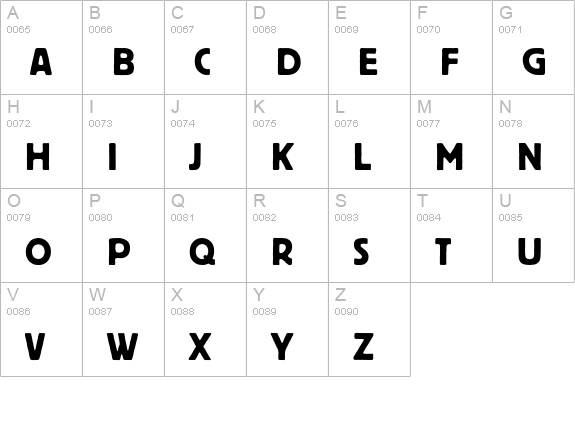
The PT Bloc Cyrillic font is a modern and stylish typeface that combines sleek lines with a bold presence. Its clean and geometric design makes it perfect for a variety of projects, from branding to editorial design. Featuring Cyrillic characters, this font is versatile and easy to read, making it a great choice for both print and digital mediums. What's even better is that the PT Bloc Cyrillic font is available for free at FontsMarket.com. You can easily download this font and start using it in your projects right away. Don't miss out on the opportunity to add this versatile and eye-catching font to your design arsenal.